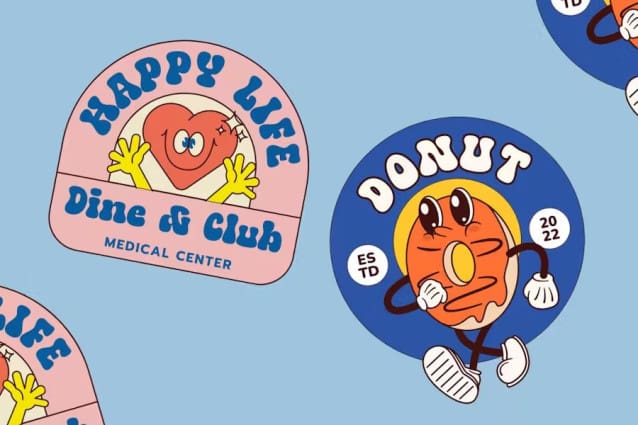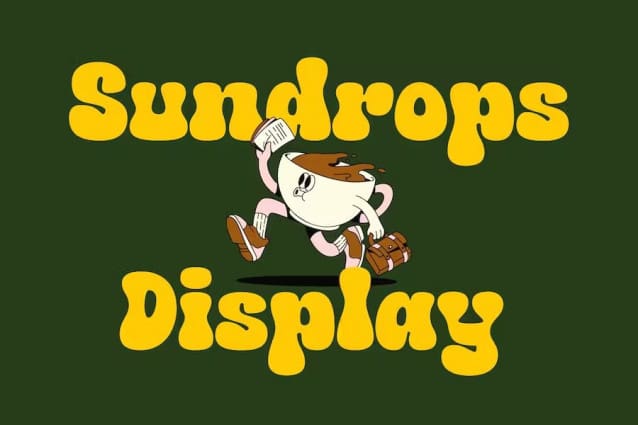
Sundrops Display Font
Sundrops Display Font is a typeface that is designed cubby and childish but can also be easily used in the modern era who want to have a fat and smooth design that has a high level of legibility.
This font is all about those chunky, fat letters that scream “I’ve got style!” The rounded touch? It adds a bit of fun to the mix. So, whether you’re jazzing up a social media poster, creating a groovy website, or adding some oomph to your digital branding, SundropsDisplay has your back.
Think of it as your secret sauce for design projects. It’s perfect for those moments when you want a hint of vintage nostalgia but still want to keep it fresh and funky. Sundrops Display – making your designs pop with a dash of old-school cool and a pinch of modern pizzazz.